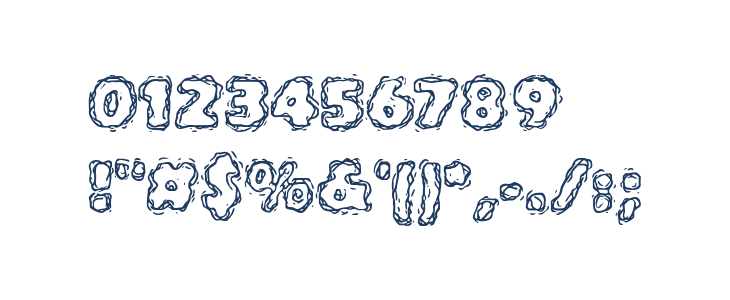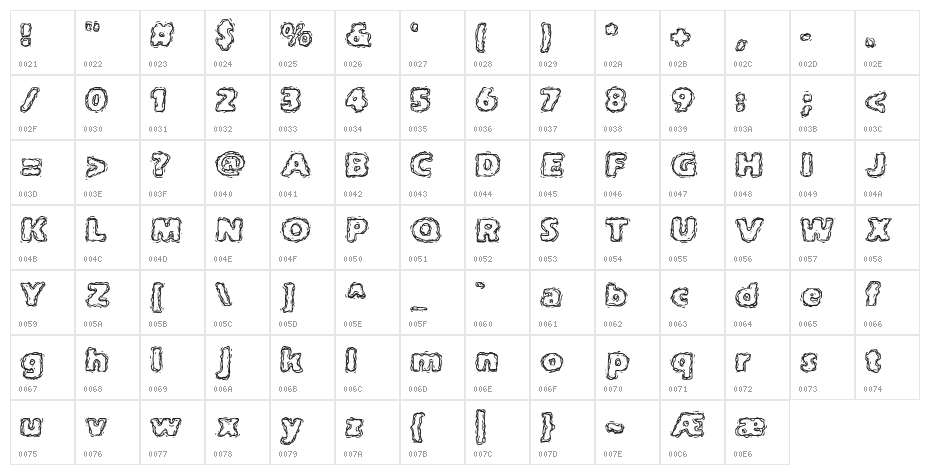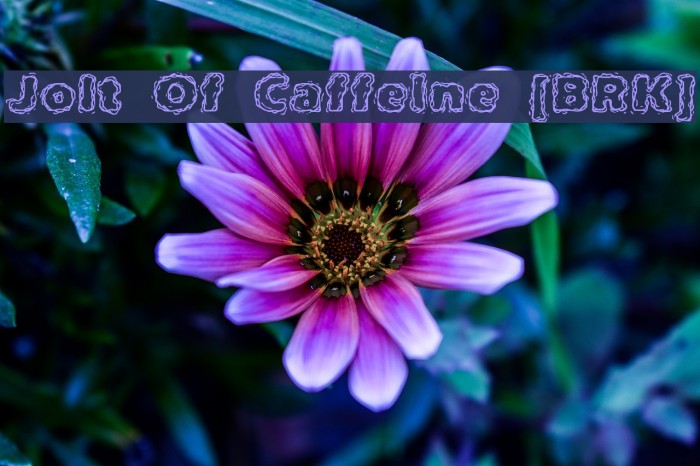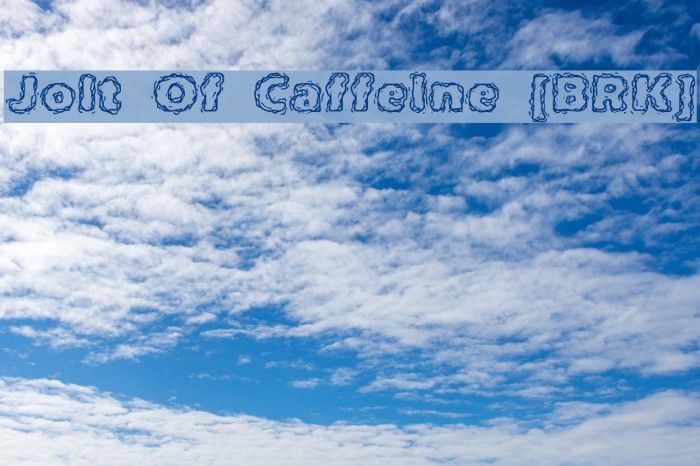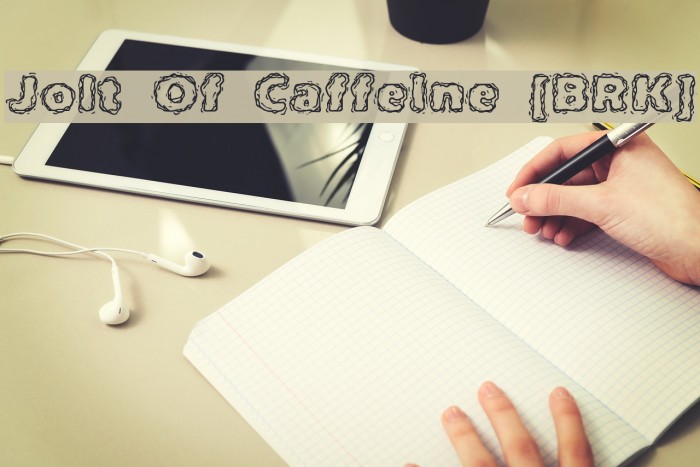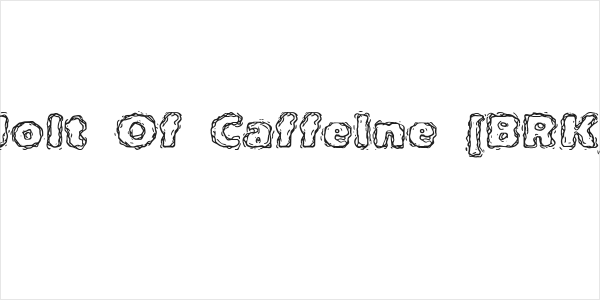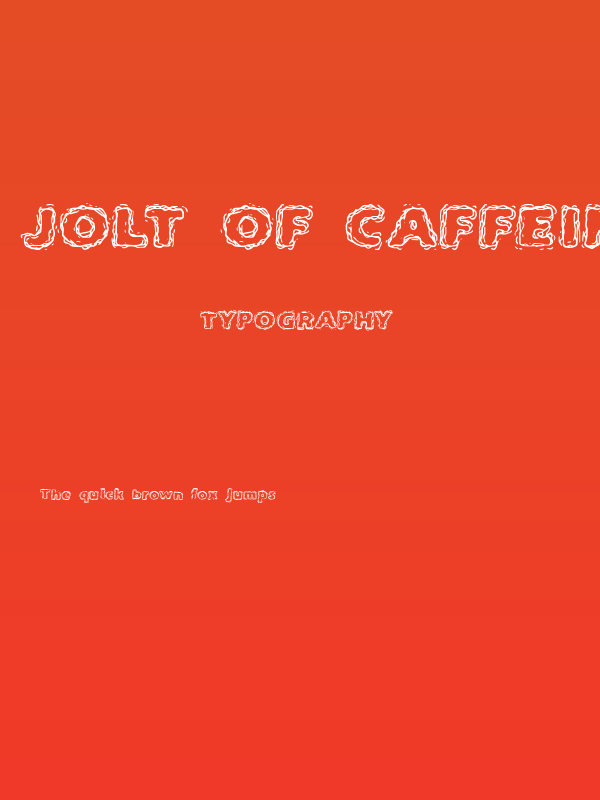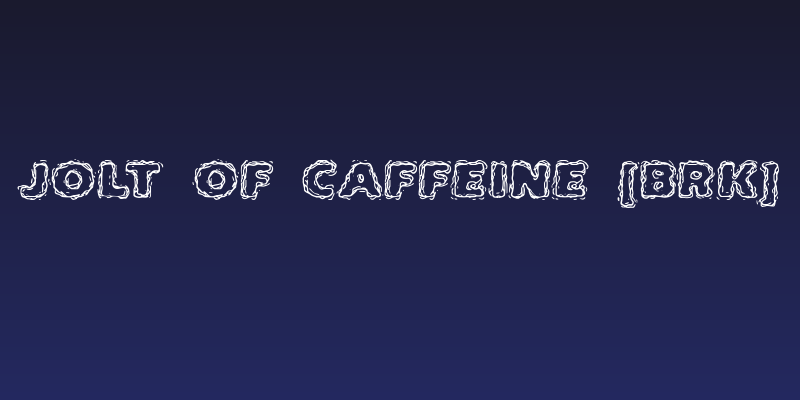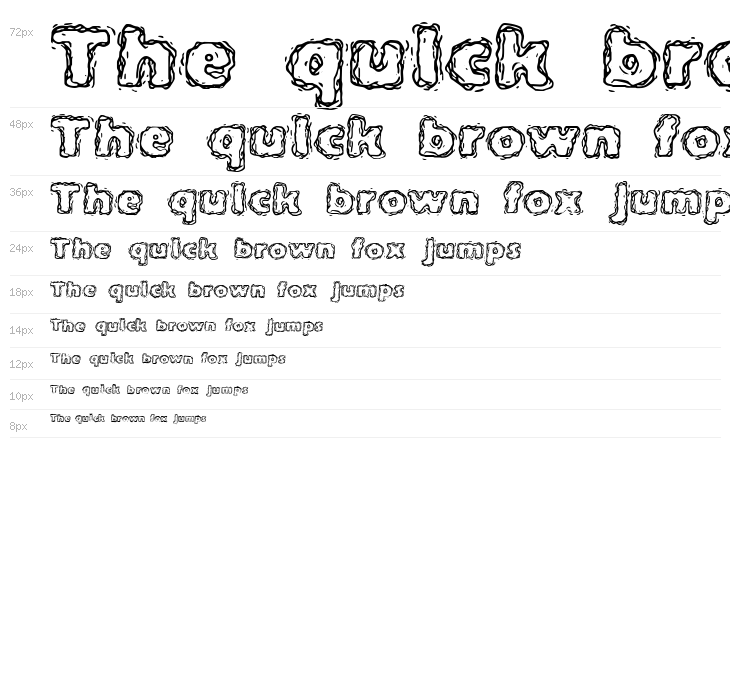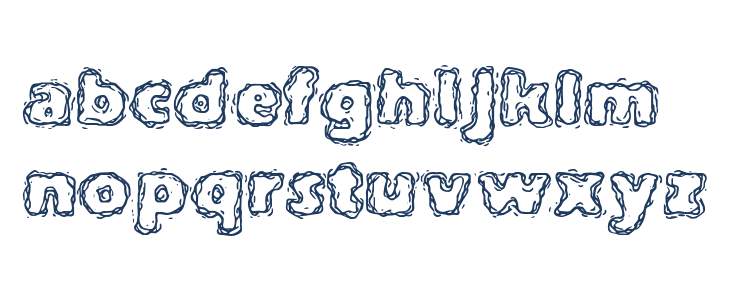
Jolt Of Caffeine [BRK] Font
Jolt Of Caffeine [BRK] Description
This font features a bold, energetic style with a playful, hand-drawn appearance. Each character is outlined with a rough, sketch-like texture, giving it a dynamic and lively feel. The letters are slightly irregular, adding to the whimsical and informal nature of the design. This font is perfect for projects that require a fun and eye-catching look, such as children's books, comic strips, or playful branding. The unique texture and boldness make it stand out, ensuring that any message conveyed with this font will capture attention.
| Overall Style | Playful, Energetic, Whimsical |
| Proposed Projects | Ideal for children's books, comic strips, playful branding, and eye-catching posters. |